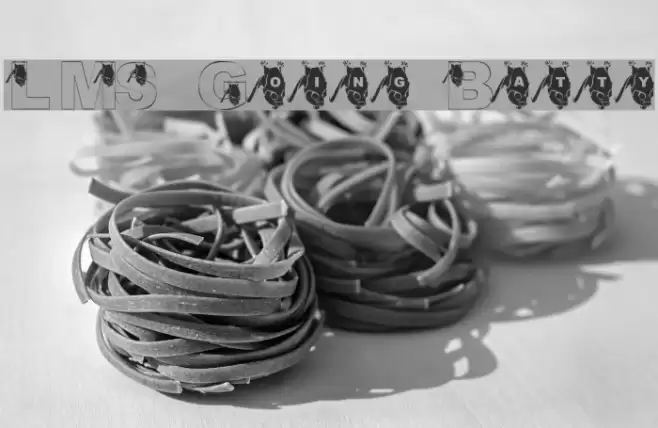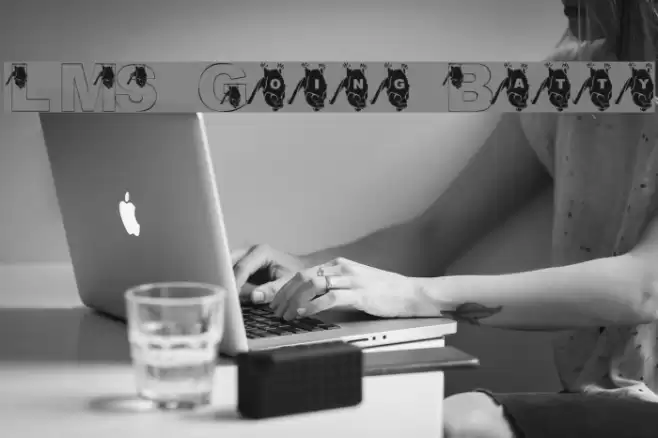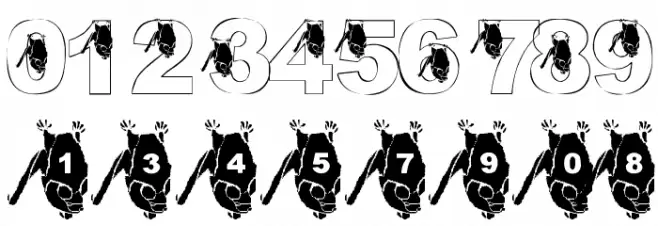
LMS Going Batty Font
LMS Going Batty Description
This playful and whimsical font features characters that are creatively integrated with bat illustrations. Each letter and number is accompanied by a bat, creating a unique and eye-catching design. The uppercase letters are bold and prominent, while the lowercase letters maintain the same playful theme. The numbers follow suit, each with its own bat companion. This font is perfect for Halloween-themed projects or any design that requires a touch of fun and creativity. The overall style is decorative and thematic, making it ideal for special occasions or themed events.
A whimsical font with characters integrated with bat illustrations, perfect for themed designs from Uncategorized fonts.
- Proposed Projects: Ideal for Halloween invitations, themed party decorations, children's book covers, and playful branding.
- Use Case: Headlines, Logos, Themed Events